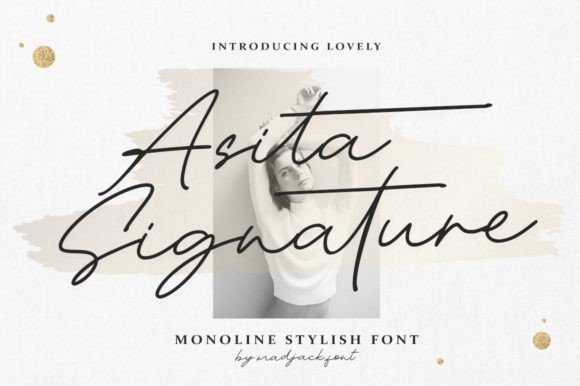
Introducing Asita Signature Font: Elevate Your Designs with Elegance
In the realm of typography, a signature font can make all the difference in creating a lasting impression. For designers seeking a stylish and elegant touch, Asita Signature Font is an exceptional choice. This beautifully crafted signature script font is characterized by smooth curves, making it perfect for fashion branding, editorial designs, and a wide range of creative projects.
The Essence of Asita Signature Font
Asita Signature Font is a masterpiece of typographic design, exuding sophistication and refinement. Its smooth, flowing curves create a sense of luxury, ideal for designers aiming to add a touch of high-end elegance to their work. Whether you’re crafting a fashion brand’s logo, creating an editorial spread, or designing an invitation, Asita Signature Font is sure to impress.
Key Features of Asita Signature Font
- Smooth Curves: The font’s defining feature is its smooth, flowing curves that create a sense of elegance and sophistication.
- Elegant Signature Style: Asita Signature Font boasts a stylish signature script style, perfect for adding a personal touch to designs.
- Fashion and Editorial Friendly: The font’s luxurious feel makes it an excellent choice for fashion branding and editorial designs.
- Versatile: Asita Signature Font can be used for a wide range of creative projects, from logos and invitations to packaging and more.
Endless Possibilities with Asita Signature Font
One of the most exciting aspects of Asita Signature Font is its versatility. The font’s elegant design and smooth curves make it suitable for various design applications. Here are some ideas to get you started:
Design Ideas to Explore
- Fashion Branding: Use Asita Signature Font to create stunning logos, business cards, and packaging for fashion brands.
- Editorial Design: Add a touch of elegance to editorial spreads, magazines, and newspapers with this beautiful signature font.
- Invitations and Stationery: Create bespoke invitations, wedding cards, and stationery with Asita Signature Font.
- Packaging Design: Elevate product packaging with the font’s sophisticated and luxurious feel.
- Digital Design: Use Asita Signature Font in digital designs, such as website headers, social media graphics, and more.
Tips for Using Asita Signature Font
To make the most of Asita Signature Font, consider the following tips:
Tips for Stunning Designs
- Pair with Contrasting Fonts: Combine Asita Signature Font with contrasting fonts to create visual interest and hierarchy.
- Experiment with Colors: Try different color schemes to find the perfect match for your design and brand.
- Play with Sizes: Experiment with various font sizes to create emphasis and add depth to your design.
- Keep it Simple: Don’t over-accessorize – let the font’s elegance shine through by keeping your design simple and clean.
Asita Signature Font is a game-changer for designers seeking to add a touch of elegance and sophistication to their work. With its smooth curves, elegant signature style, and versatility, this font is perfect for fashion branding, editorial designs, and a wide range of creative projects. By incorporating Asita Signature Font into your designs, you’ll unlock endless possibilities and elevate your work to new heights.